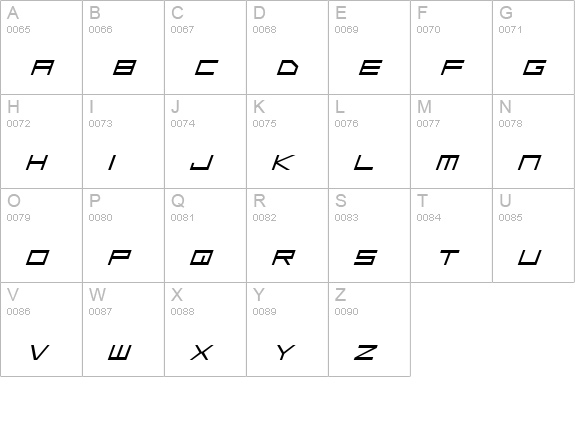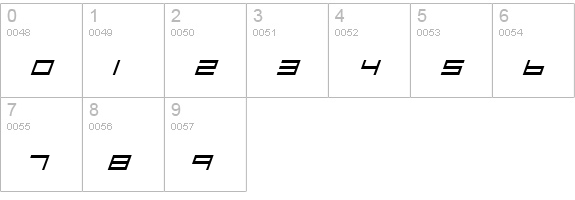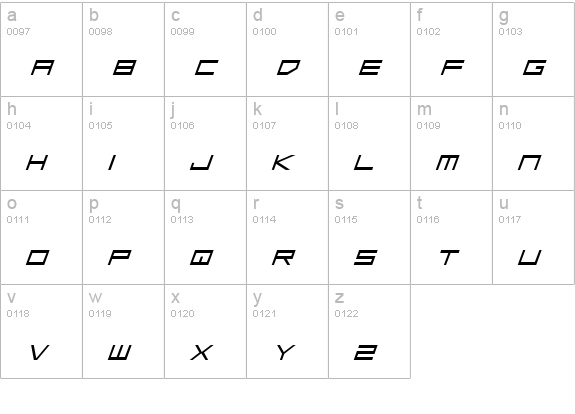
Low Gun Screen Expanded Italic is a distinctive, extended-width, italic variant in the Low typeface family \xE2\x80\x94 well suited to design and typography projects.
The Low Gun Screen Expanded Italic font is a sleek and modern typeface that exudes sophistication and style. Its italicized design adds a touch of elegance to any project, making it perfect for use in branding, advertising, and editorial design. The expanded letterforms provide a unique look that is sure to make your text stand out. This font is available for free download at FontsMarket.com, making it easily accessible for all designers and creatives looking to add a touch of flair to their work. With its bold and eye-catching appearance, the Low Gun Screen Expanded Italic font is sure to make a statement and elevate your designs to the next level.